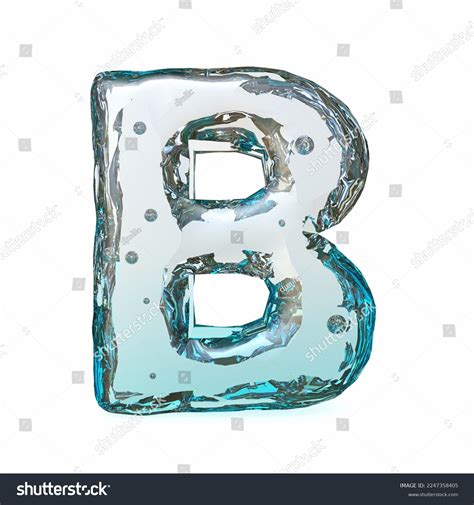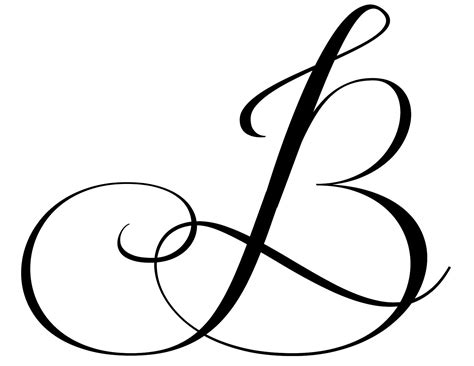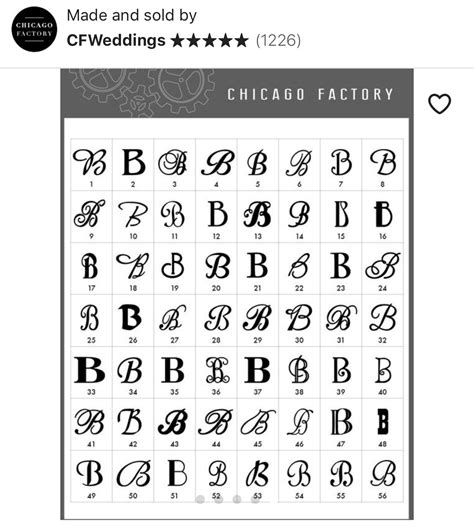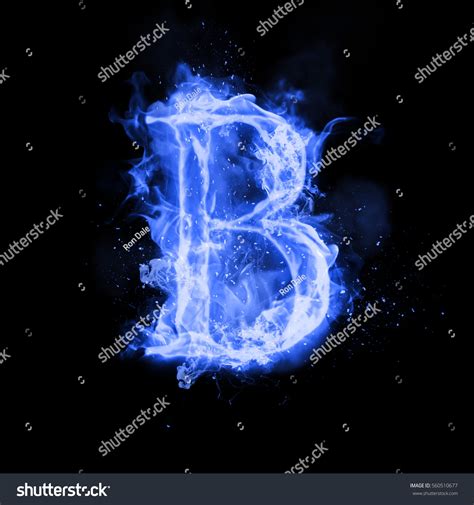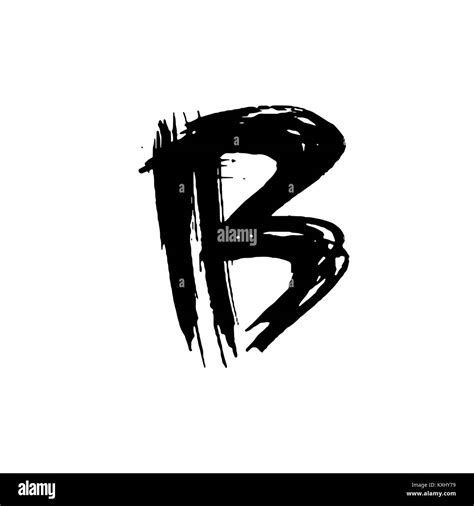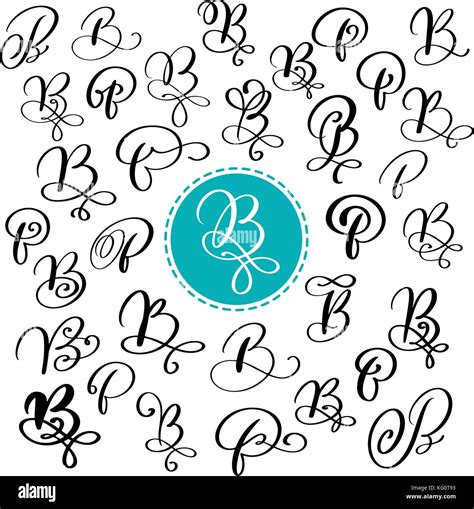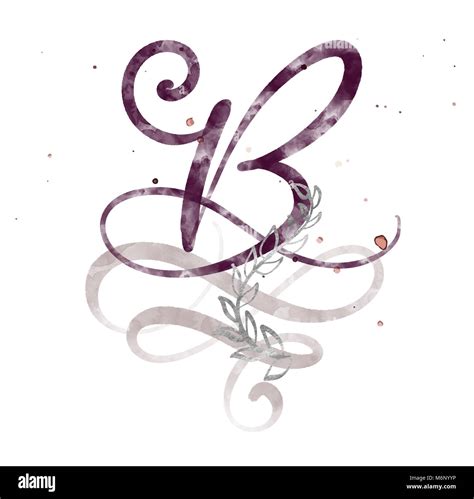
Typography serves as the optic rachis of any plan project, and detect the perfect font can define the entire mood of your creative work. When you are looking for Cool Letter B Fonts, you are likely searching for that specific balance between legibility and aesthetic genius. Whether you are design a minimalist logo, a vintage-inspired poster, or a silky column layout, the missive "B" offer unequalled opportunities for isotropy and structural experiment. Because this lineament features both consecutive lines and rounded curves, it acts as a playground for designers who require to showcase the versatility of their chosen fount. Selecting the rightfield style - whether it is a bold slab serif or a fragile, whirl script - will prescribe how your hearing interacts with your brand individuality or artistic vision.
The Evolution of Letterform Design
Typography has evolved significantly from the days of hand-carved rock inscription to the digital precision of modern vector-based case. The missive "B" has constantly been a focal point for case designers because of its complex anatomy. Understanding the nuances of these letterforms is all-important when choose Cool Letter B Typeface for your succeeding project.
Anatomy and Structure
The letter "B" is composed of a vertical stalk and two stacked bowls. These components countenance for non-finite variations:
- Serif Styles: Utilize traditional, bracketed, or slab serifs to make a sentiency of history, say-so, and dependability.
- Sans-Serif Style: Whirl a unclouded, modern aesthetic perfect for tech make and contemporary minimalist layouts.
- Script and Calligraphic Styles: Introduce elegance, move, and a human trace through flux curves and thick-to-thin stroke changeover.
- Display Fonts: Much prioritize optical impact over legibility, apply exaggerated proportions or unparalleled cutouts to capture attention.
Comparing Popular Font Categories
Choosing the right typeface oft comes down to mate the font category to the intended message of your designing. Below is a breakdown of how different font categories touch the ocular weight of the letter "B".
| Class | Optical Vibe | Better Use Case |
| Slab Serif | Bold and Sturdy | Logos and Headlines |
| Geometric Sans | Modern and Neutral | UI Design and Digital Media |
| Vintage Script | Graceful and Definitive | Invitation and Branding |
| Ornamental Display | Artistic and Unique | Posters and Creative Adverts |
💡 Billet: Always test how your chosen font performs in both uppercase and lowercase, as the "b" and "B" ofttimes have entirely different geometrical footprints.
Best Practices for Selecting Typography
When curating a selection of fonts for a branding project, consistency is key. You desire your composition to be memorable without being cark. If you happen a set of Cool Letter B Fonts that you love, view how they pair with secondary typefaces.
Hierarchy and Legibility
Don't just pluck a baptistry because it looks interesting; insure it serve a intent. A ornamental "B" might be consummate for a letterhead or a make icon, but it may show undecipherable in a long-form paragraph. Use expressive typeface sparingly to make visual hierarchy.
Pairing Fonts Like a Pro
- Compound a bluff display face for heading with a clean, impersonal sans-serif for body transcript.
- Use contrast in throw weight to create sake; a lean show baptistry can appear advanced when geminate with a sheer, squatty endorse typeface.
- Keep the humour consistent - avoid conflate rigid, industrial font with capricious, handwritten scripts unless you are take for a specific experimental aesthetic.
💡 Note: Kerning and tracking adjustments are oft necessary when work with custom-made display fonts to ensure the letters sustain a proportionate relationship with one another.
Mastering typography is a journey of never-ending experiment and refinement. By understand the underlie figure of the letter "B" and how different styles touch the overall percept of your work, you can elevate your design projects from standard to surpassing. Always prioritize the relationship between the shapes of your letters and the context of your layout, see that the ocular ingredient serve to reward your substance kinda than clutter it. Whether you are leaning toward the dateless appeal of a serif or the piercing, cutting-edge aesthetic of a geometric sans, the correct choice will cater the everlasting focal point for your creative sight. Measured care to detail, proper spacing, and serious-minded mating will ensure that your chosen composition leave a lasting feeling on your hearing, ultimately procure a professional and refined appearing in every covering of your trade.